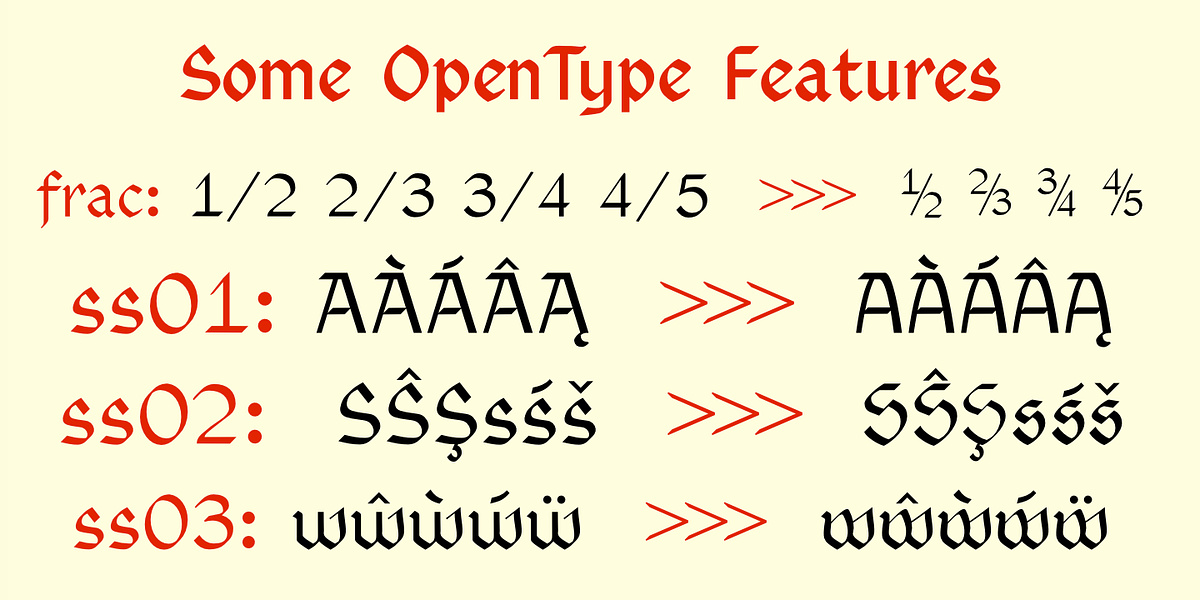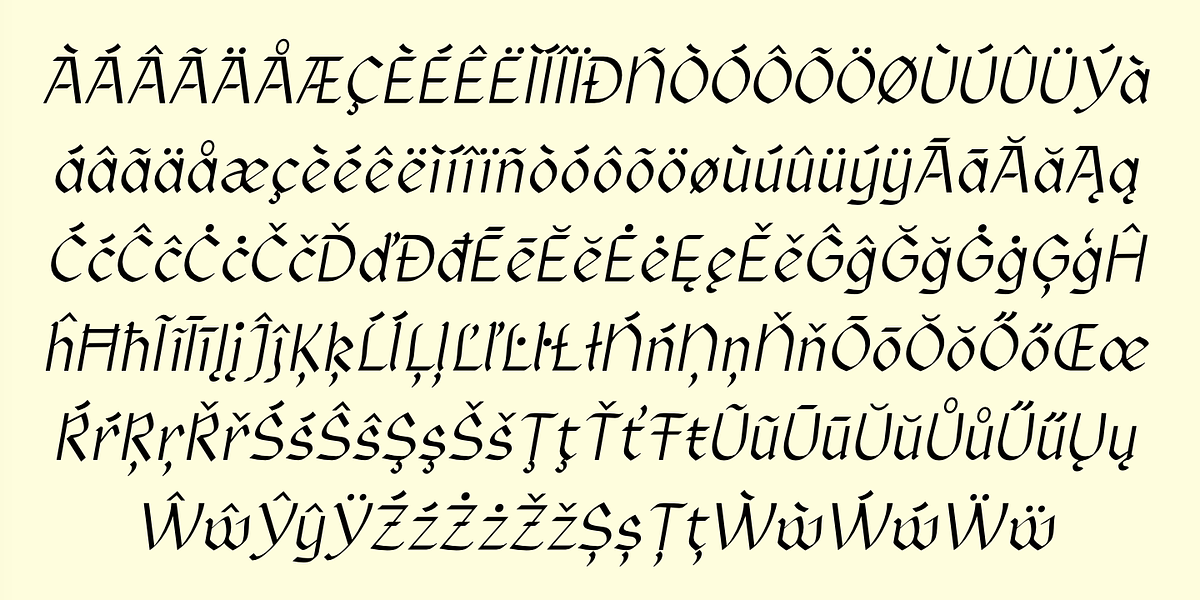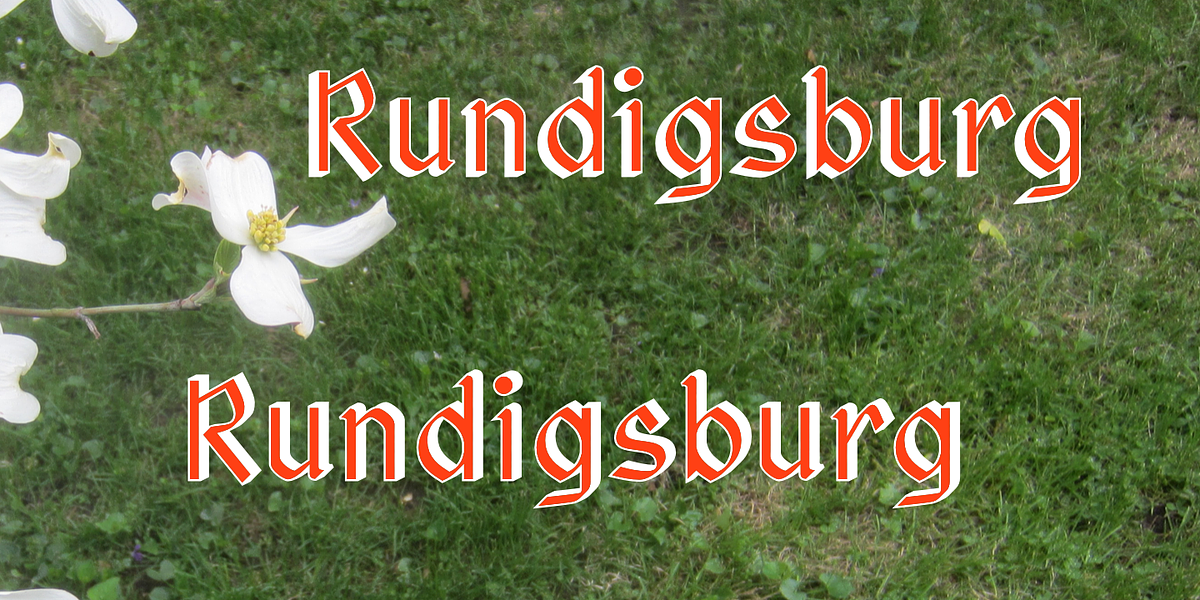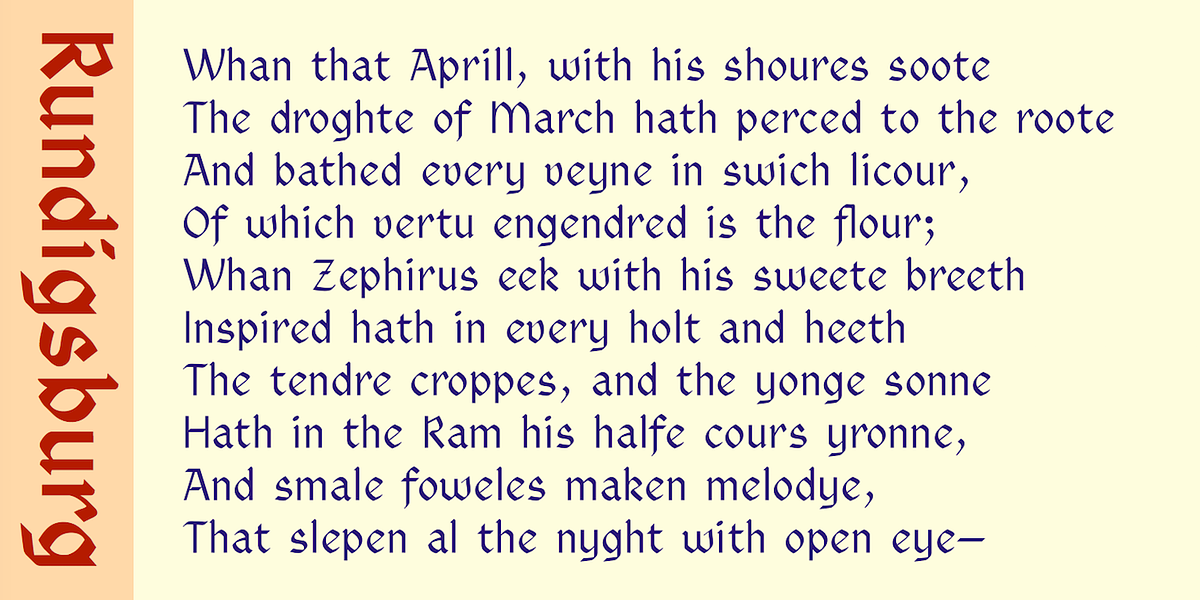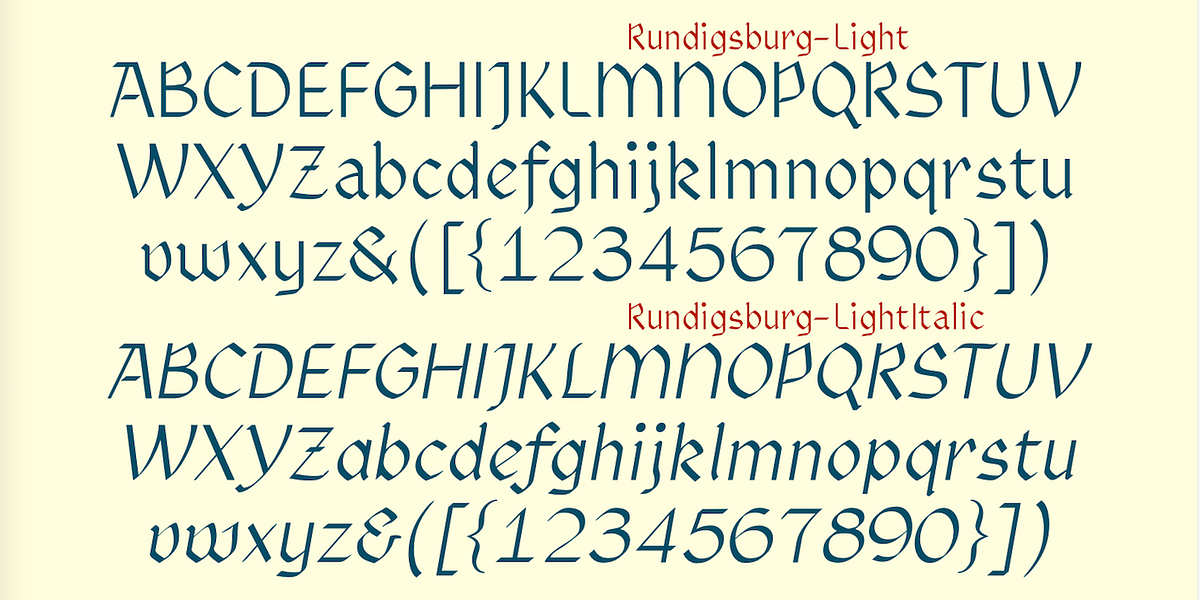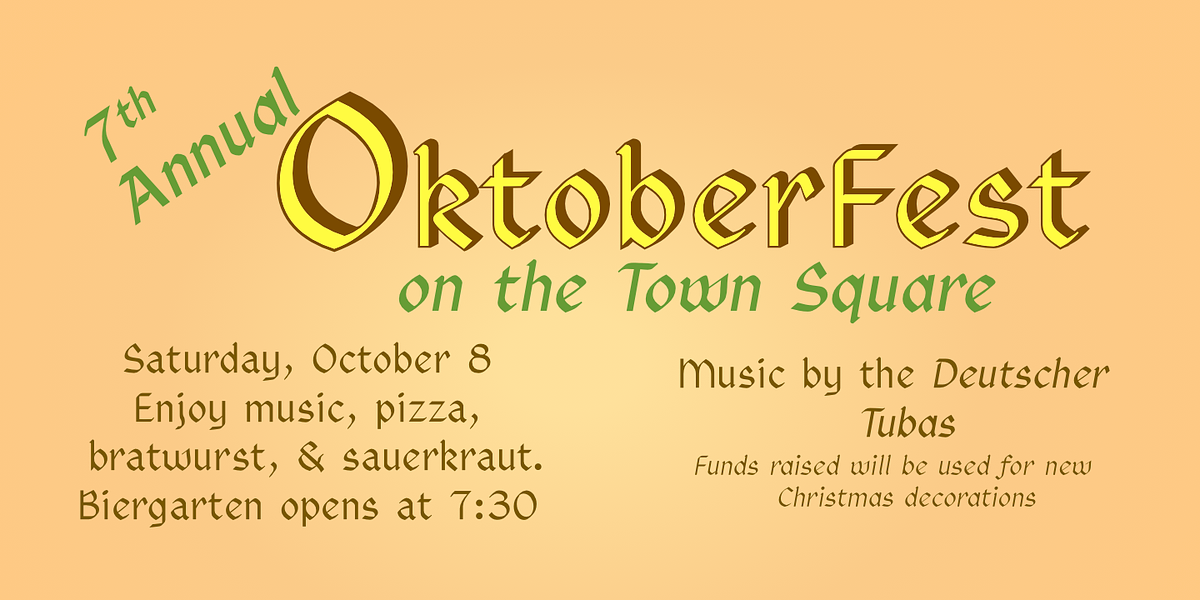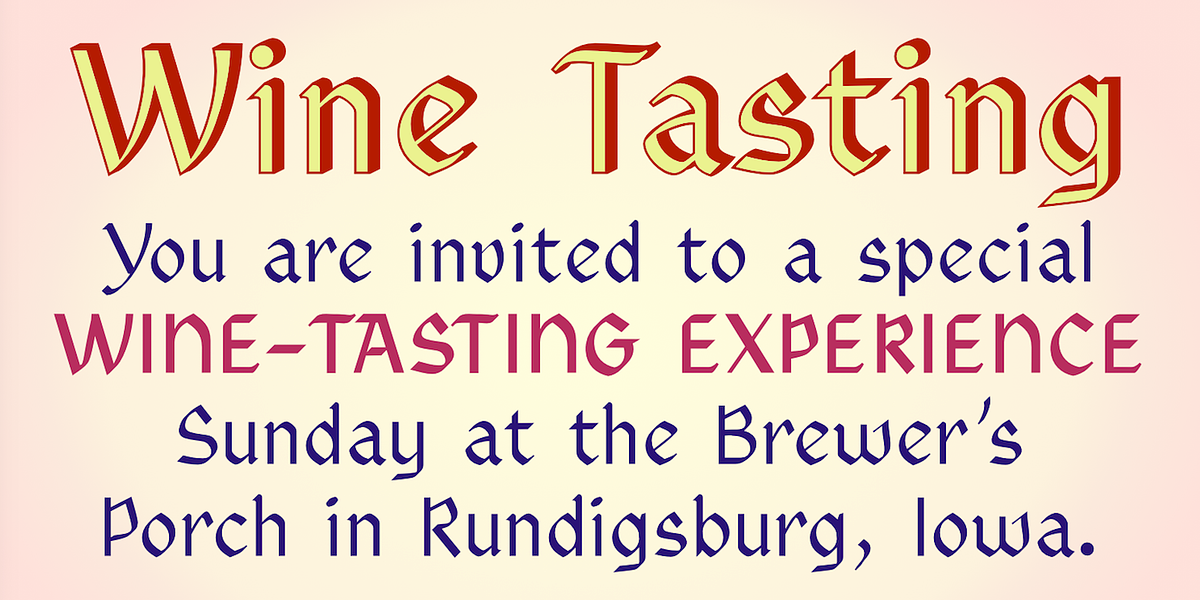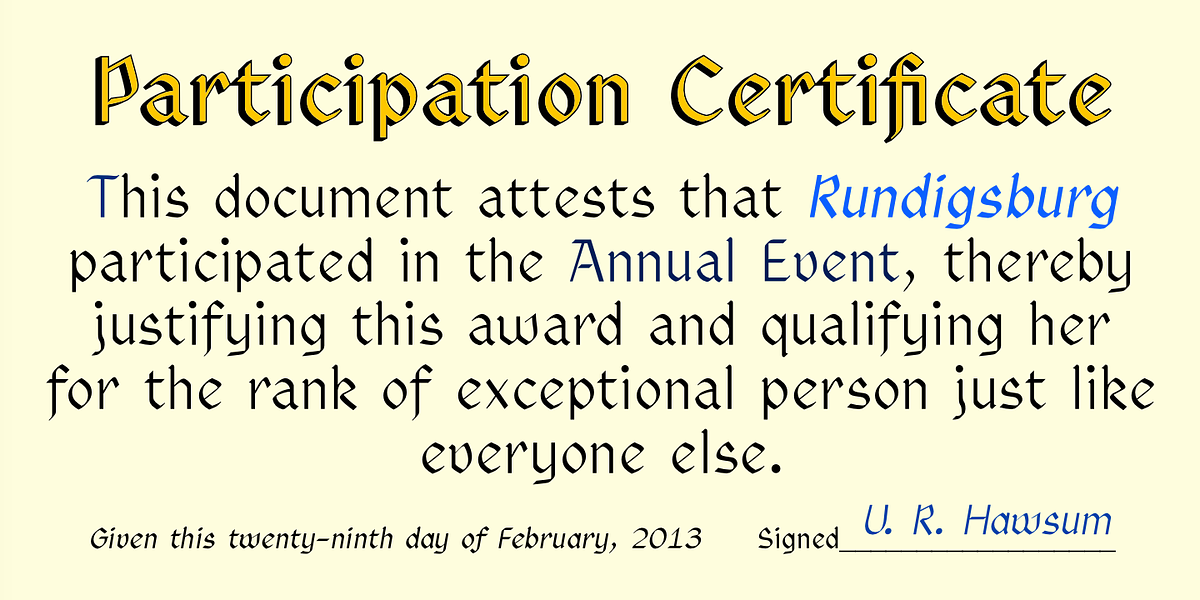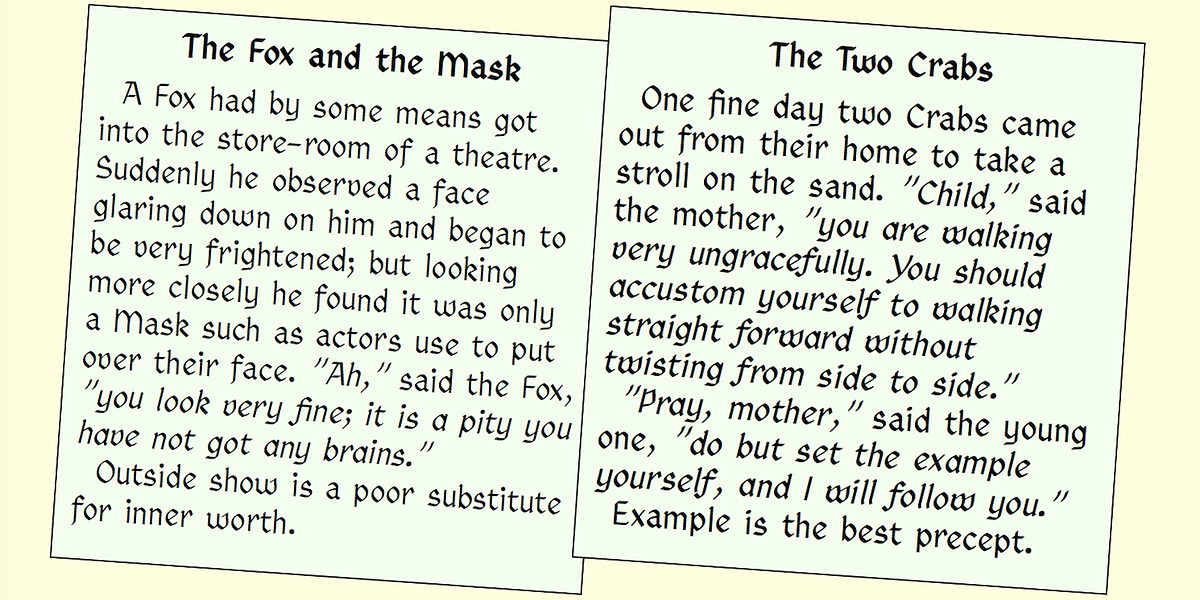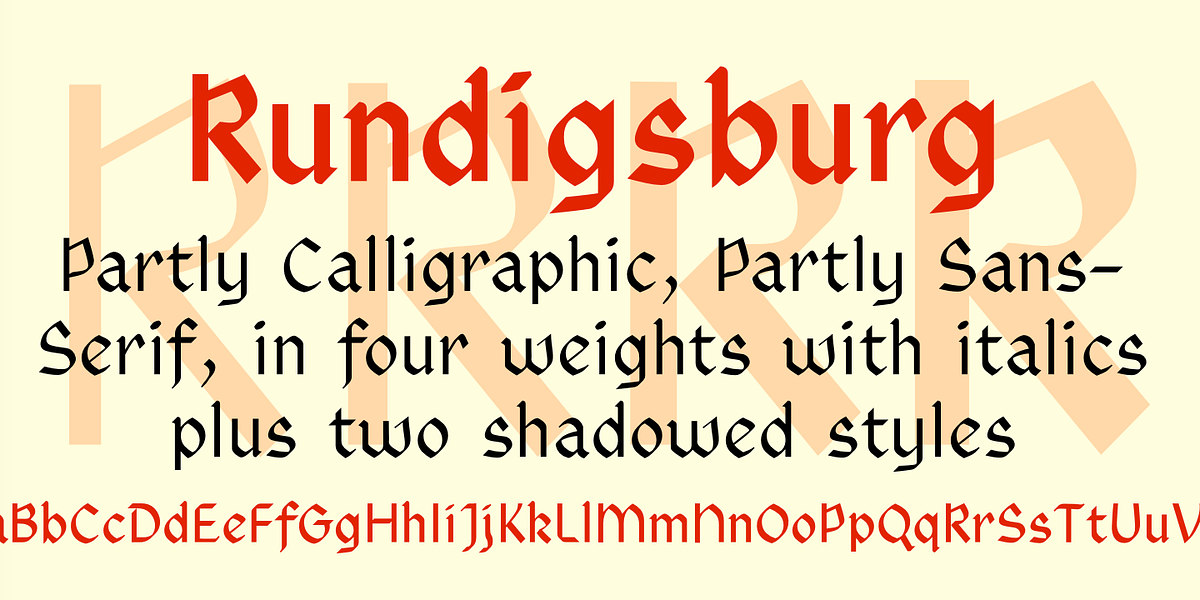
Rundigsburg
Rundigsburg is a unique sans serif font that blends calligraphic influences with a modern aesthetic. Its angular letterforms retain traces of older calligraphic styles while remaining legible and suitable for both display and text purposes. The font family offers four weights, each with an italic style, and includes shadowed versions along with complementary 'inside' styles designed for layered effects.